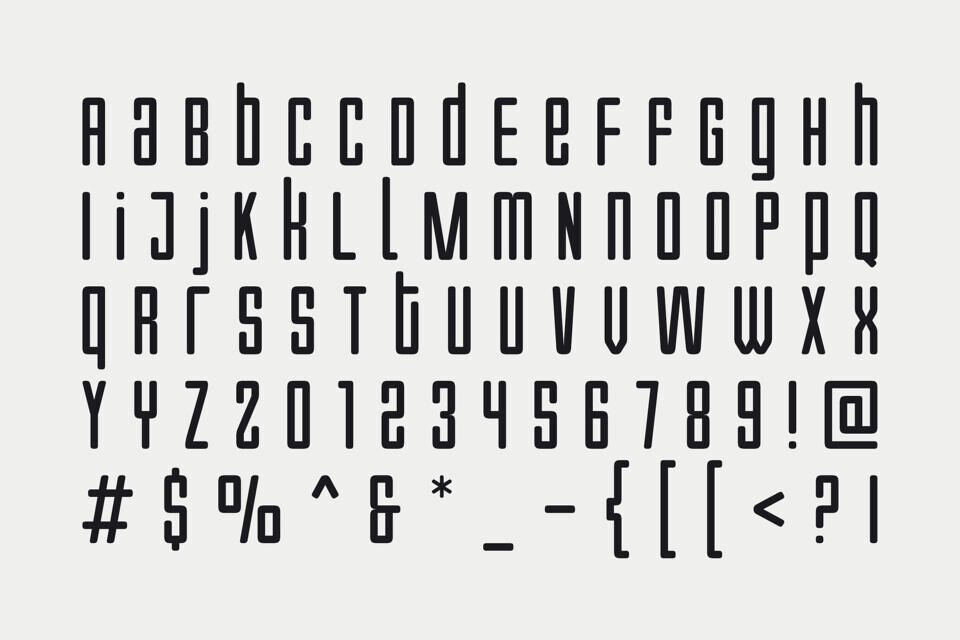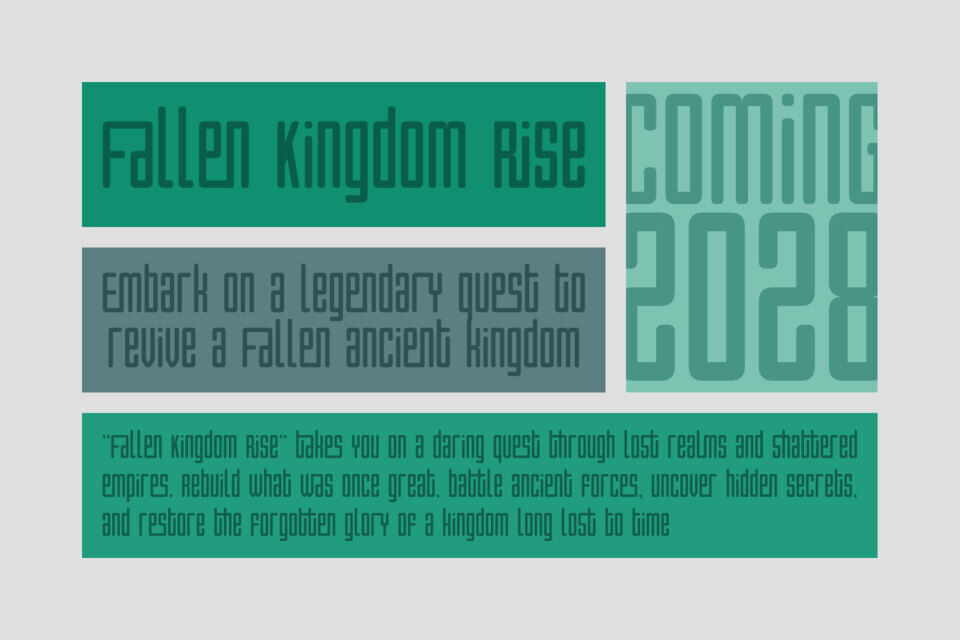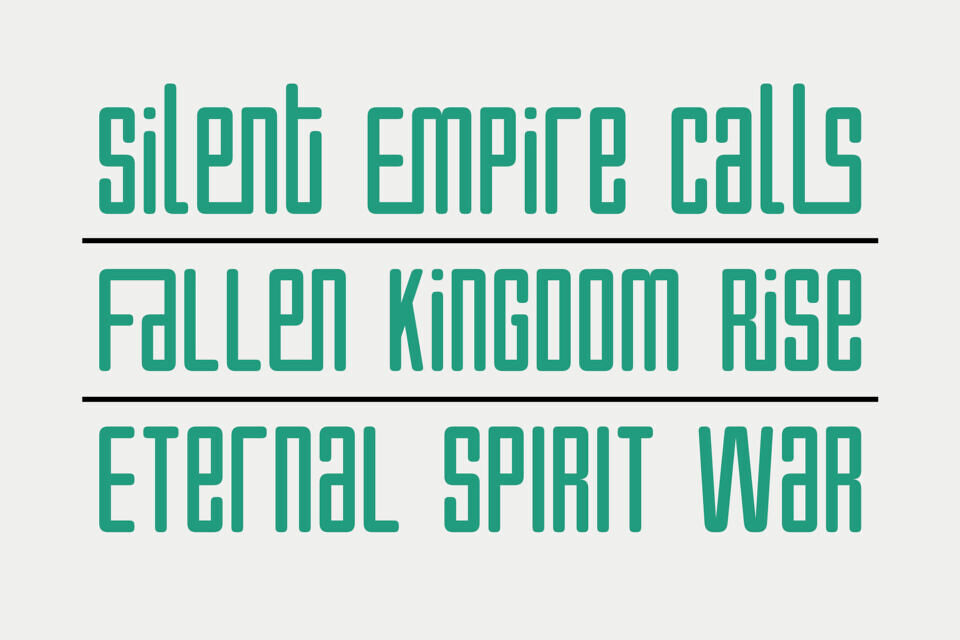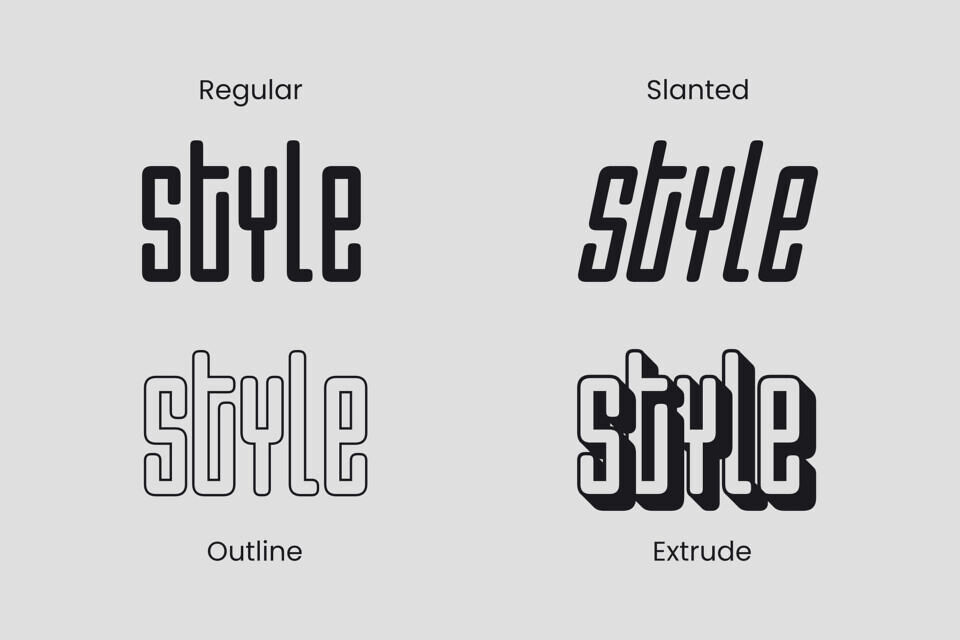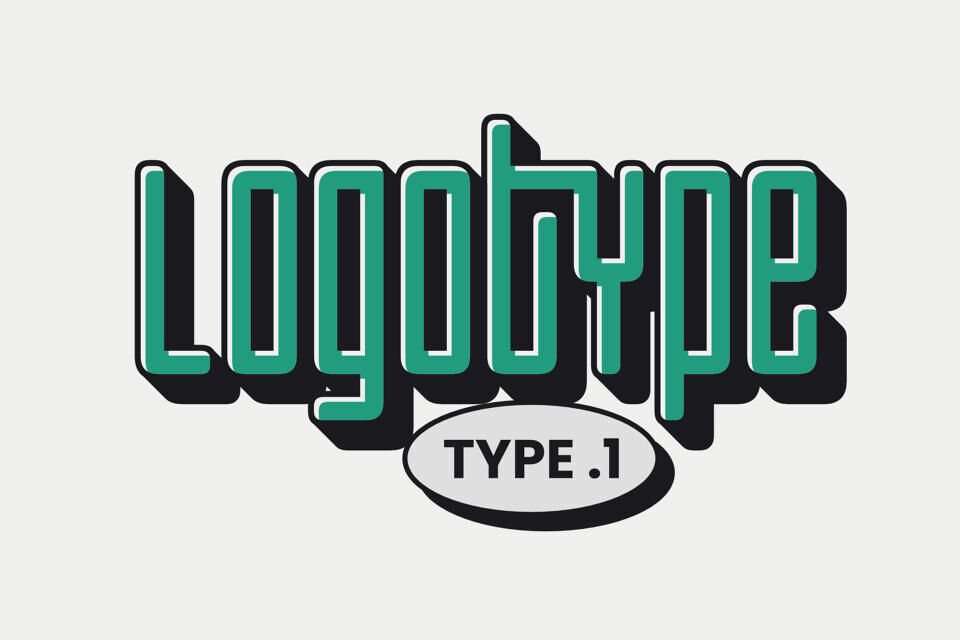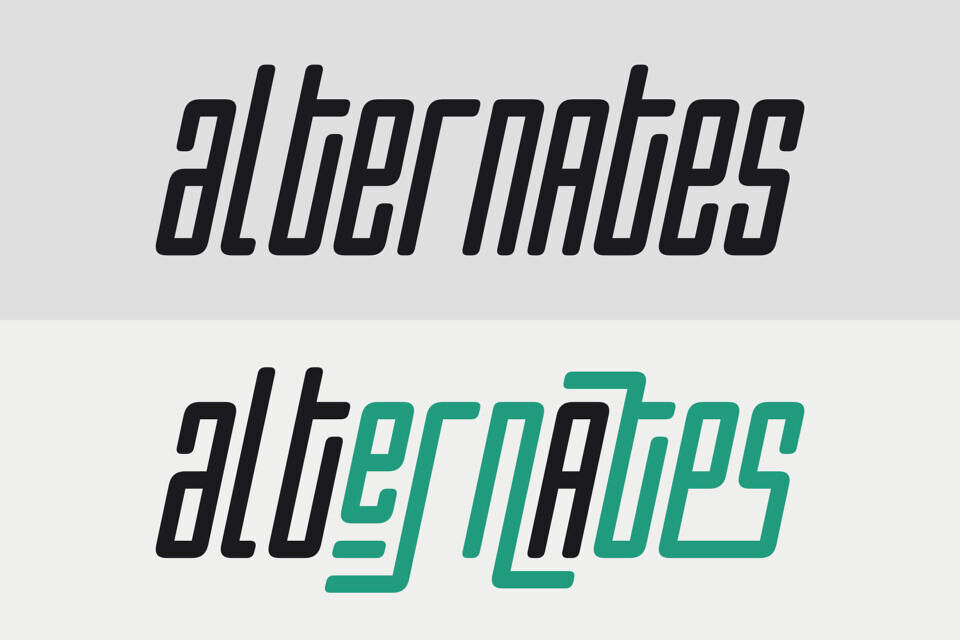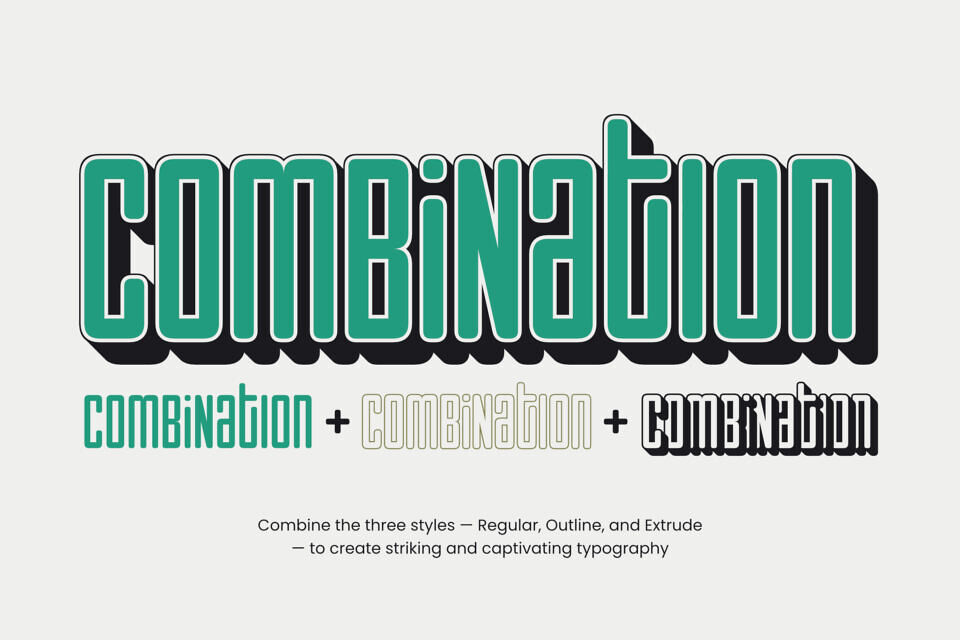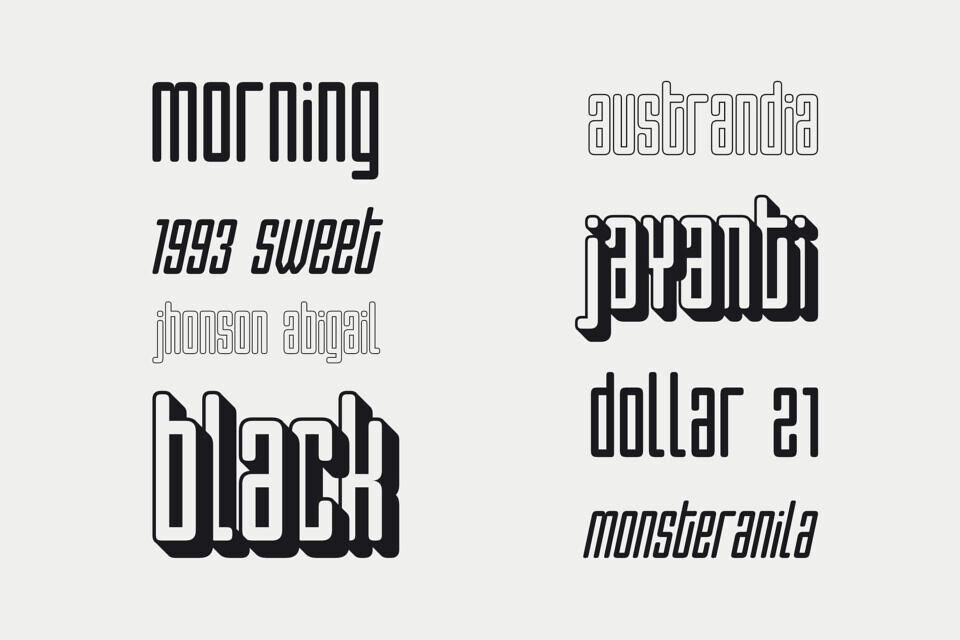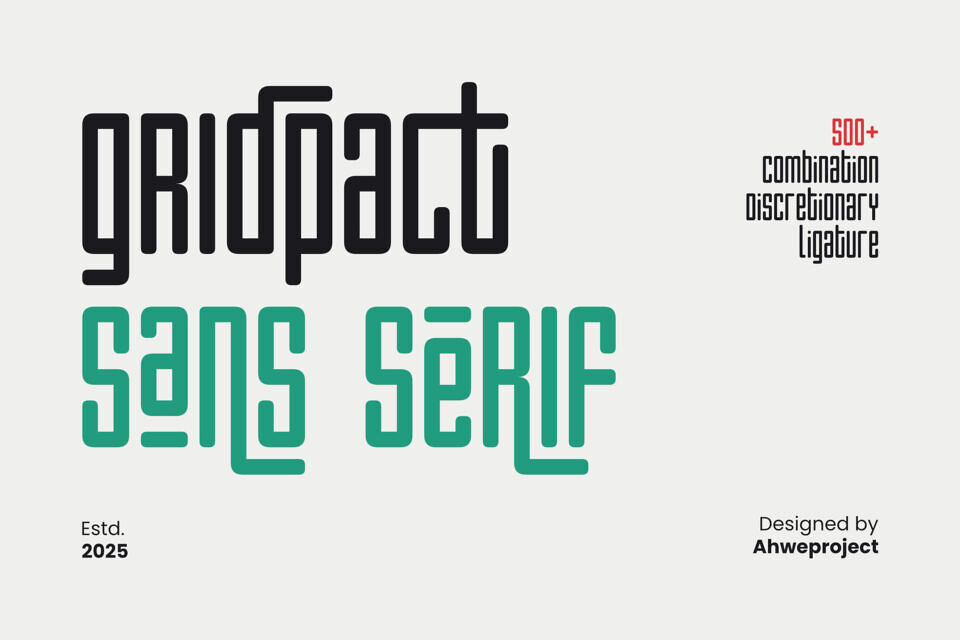
Gridpact Font
Introducing Gridpact, a modern sans serif font crafted for those who love clean, futuristic, and character-packed designs. Built on a precise grid system, Gridpact stands out with over 500 discretionary ligature combinations, giving every word a unique and eye-catching look.
Perfect for branding designs, electronic music posters, sci-fi book covers, creative logos, and other modern projects. Its modular and minimalist letterforms make it both flexible and stylish with a strong, consistent identity.